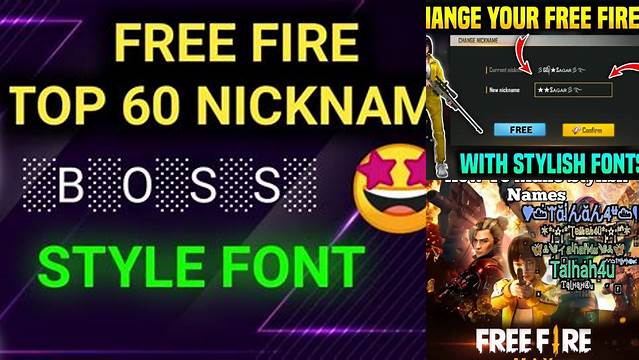
Free Fire Font Names: Style Your Nickname!
Hey there, Free Fire fanatics! đ Are you tired of the same old boring nickname? Do you want your in-game name to stand out from the crowd? Well, you're in the right place! We're diving deep into the world of Free Fire font names, showing you how to spice up your profile with cool fonts and unique styles. Let's get started and make your name as legendary as your gameplay! đ
H2: Unleashing the Power of Free Fire Font Generators đšī¸
Alright guys, let's talk about the secret weapon for crafting awesome Free Fire font names: font generators! These online tools are super easy to use and offer a vast library of fonts and styles. You just type in your desired nickname, and the generator spits out a bunch of different versions, all jazzed up with cool fonts, symbols, and special characters. It's like having a personal stylist for your in-game name! đ
There are tons of these generators available online, so you have plenty of options. Most of them work the same way. You enter your desired name, choose from a list of fonts or styles, and then copy and paste the result into your Free Fire profile. Simple as that! Some generators even let you customize your name further with different colors, backgrounds, and other effects. How cool is that? Think about it: with a few clicks, you can transform your basic name into something truly eye-catching. Maybe you want a bold, edgy look, or perhaps something more elegant and refined. Whatever your style, a font generator can help you achieve it. đ¨
It's important to remember that while these generators are great, not all fonts will work perfectly in Free Fire. Some fonts might display weird characters or not show up at all. Don't worry, though! Experiment with different fonts and find ones that look good and are easy to read. The goal is to create a name that's both stylish and functional. After all, you want people to easily recognize you in the heat of battle, right? đ
Also, be aware of the limitations of the Free Fire name system. There's a character limit, so you might not be able to use super long or complex names. Keep it concise and impactful. The best names are often short, memorable, and visually appealing. And hey, don't be afraid to get creative! Mix and match fonts, symbols, and characters to create a truly unique name that reflects your personality and gaming style. Go wild, and have fun with it! đ
H2: Cool Free Fire Font Styles: From Bold to Italic đĨ
Let's get down to the nitty-gritty: what kind of styles can you actually use for your Free Fire font name? Well, the possibilities are pretty much endless, thanks to the magic of font generators. Here's a rundown of some popular styles and what they can bring to your in-game persona.
First up, we have bold fonts. These are perfect if you want your name to grab attention instantly. Bold fonts are strong, powerful, and make you look like a serious player. They're great for names that need to stand out in a crowded environment, so people will notice you right away! đ¯
Next, we have italic fonts. These give your name a touch of elegance and sophistication. Italic fonts are often associated with creativity and a slightly rebellious attitude. If you want a name that's both stylish and memorable, italic fonts could be a great choice. Maybe you want to convey a sense of speed or agility? The slant of an italic font can help with that too!
Beyond the basics, there are a ton of other styles to play with. You can find fonts with bubble letters, giving your name a playful and fun vibe. There are also fonts with sharp edges, which make you look tough and ready for action. Some generators even offer fancy fonts with unique decorations, such as wings, stars, or other symbols. These can make your name truly unique. â¨
Experimenting is key! Try different combinations of styles to see what works best. Remember, the goal is to create a name that reflects your personality and gaming style. Don't be afraid to get creative, mix and match, and find a font that truly represents you. The perfect font style is out there, waiting for you to discover it!
H2: Symbols and Special Characters for Free Fire Names đ
Okay, so you've got your font style picked out. But how do you really take your Free Fire font name to the next level? The answer is simple: symbols and special characters! These little gems can transform a boring name into something truly unique and eye-catching. Let's explore some ways to use them effectively.
Symbols and special characters add a layer of visual interest to your name. They can represent your favorite things, your playing style, or simply add a touch of flair. Think about it: a simple heart symbol can show your love for the game, while a fire emoji can reflect your fiery gameplay. Symbols add personality and make your name more memorable. đĨ°
Where do you find these symbols? Well, you can use your keyboard or, better yet, font generators. Font generators often have built-in symbol libraries, making it easy to find and insert them into your name. You can add things like stars, hearts, arrows, musical notes, and more. This is a fantastic way to make your name unique. Some generators also allow you to copy and paste symbols from other sources, such as websites or social media platforms. đģ